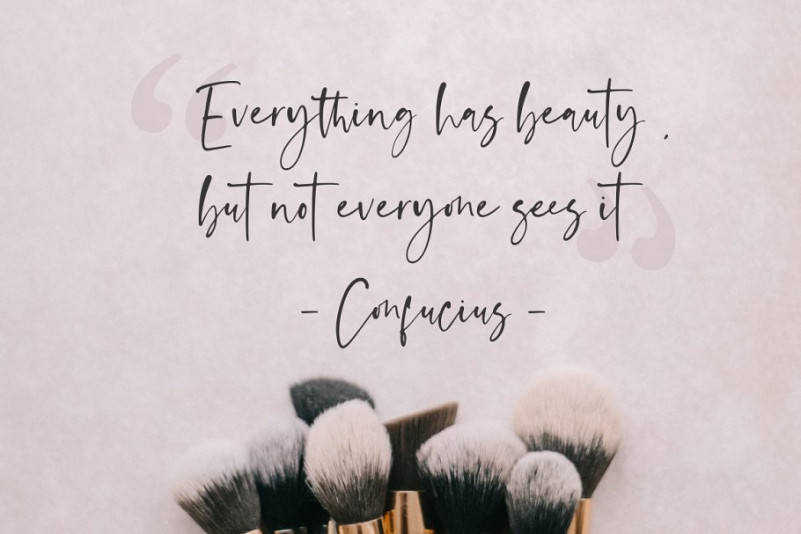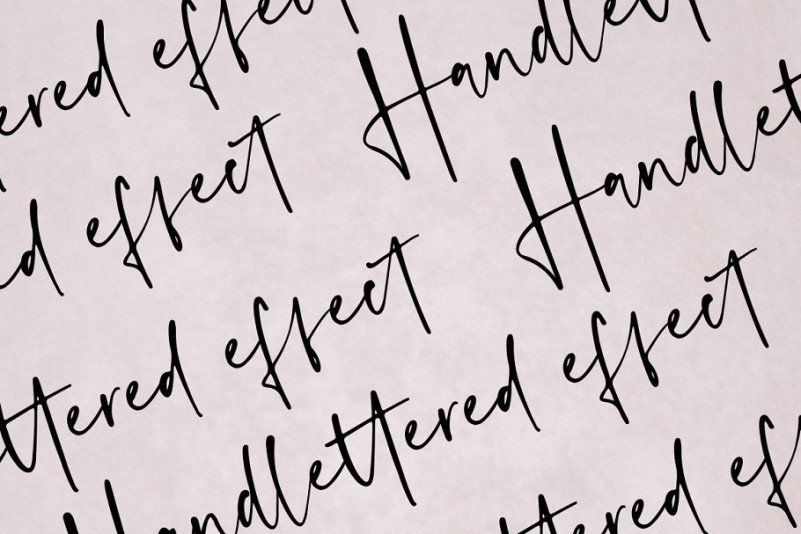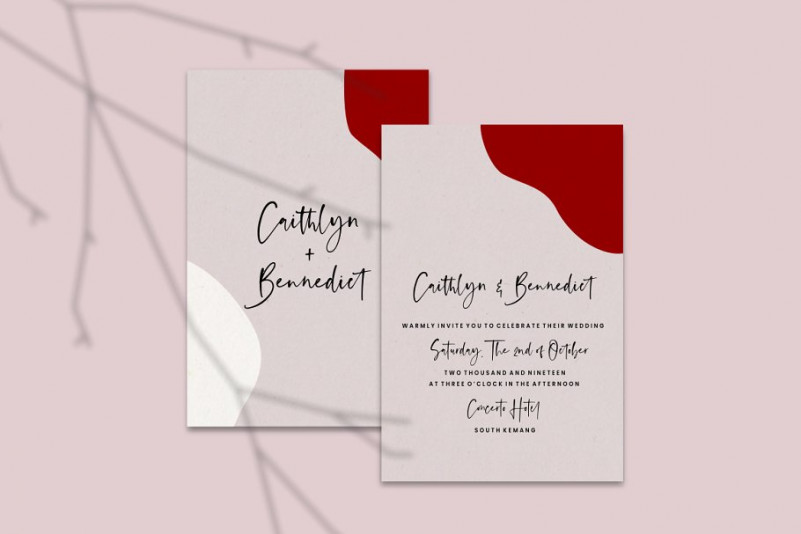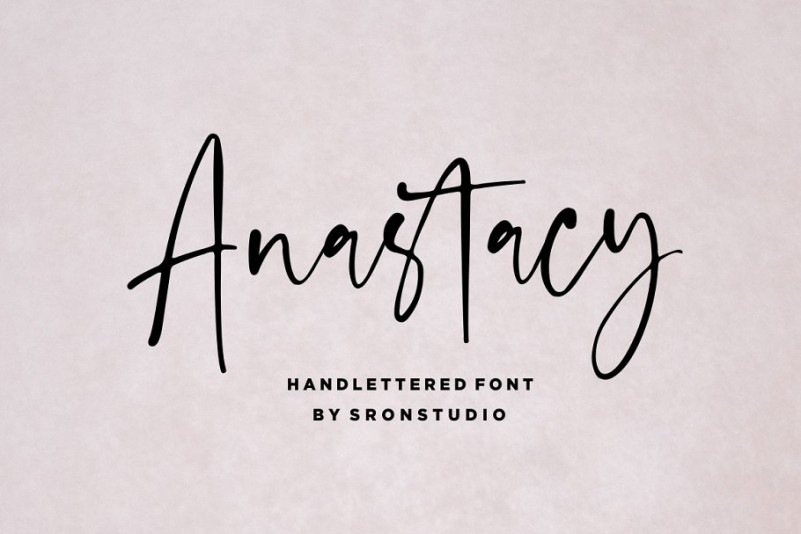
Anastacy Handlettered Font
Thank you for looking! Introducing a beautiful, clean, hand lettered script font. This font was designed with elegant, magical & whimsical designs in mind. Introducing Anastacy Font! Anastacy Handlettered Font is a natural handwritten font, this font Is perfect for logo, invitation, stationery, wedding designs, social media posts, advertisements, product packaging, product designs, label, photography, watermark, special events or anything. Anastacy comes with full set of uppercase and lowercase letters, Contextual alternates , multilingual symbols, numerals, punctuation.